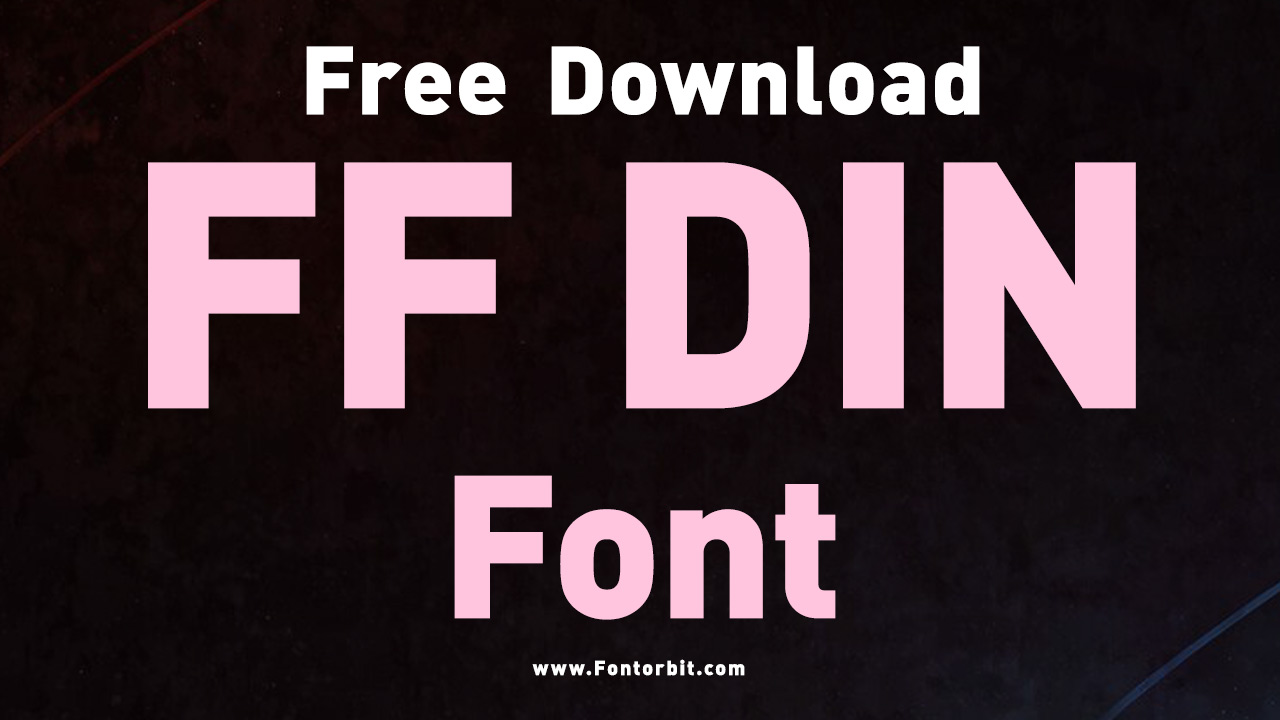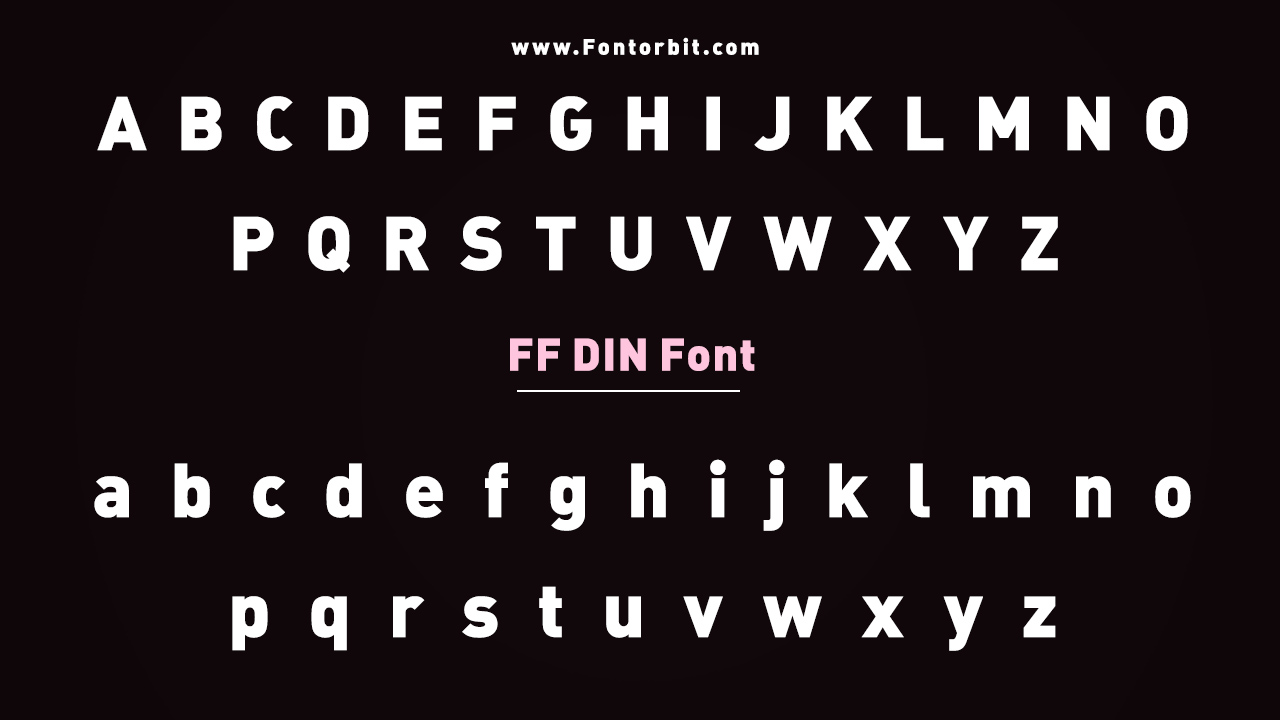
FF DIN is a modern sans-serif typeface designed by Albert-Jan Pool and published by FontFont in 1995. This typeface is part of the DIN family and is well-known for its clean lines and geometric forms, making it suitable for various design applications, from signage to digital interfaces.
FF DIN Family Includes
FF DIN features a versatile range of weights and styles. Here’s a brief overview:
- FF DIN Condensed Black
- FF DIN Pro Condensed Black
- FF DIN Light
- FF DIN Pro Light
- FF DIN Light Italic
- FF DIN Pro Light Italic
- FF DIN Regular
- FF DIN Pro Regular
- FF DIN Regular Italic
- FF DIN Pro Regular Italic
- FF DIN Medium
- FF DIN Pro Medium
- FF DIN Medium Italic
- FF DIN Pro Medium Italic
- FF DIN Bold
- FF DIN Pro Bold
- FF DIN Bold Italic
- FF DIN Pro Bold Italic
- FF DIN Black
- FF DIN Pro Black
- FF DIN Black Italic
- FF DIN Pro Black Italic
- FF DIN Thin Italic
- FF DIN Pro Thin Italic
- FF DIN Extra Light
- FF DIN Pro Extra Light
- FF DIN Extra Light Italic
- FF DIN Pro Extra Light Italic
- FF DIN Condensed Thin
- FF DIN Pro Condensed Thin
- FF DIN Condensed Thin Italic
- FF DIN Pro Condensed Thin Italic
- FF DIN Condensed Extra Light
- FF DIN Pro Condensed Extra Light
- FF DIN Condensed Extra Light Italic
- FF DIN Pro Condensed Extra Light Italic
- FF DIN Condensed Regular
- FF DIN Pro Condensed Regular
- FF DIN Thin
- FF DIN Pro Thin
- FF DIN Condensed Light
- FF DIN Pro Condensed Light
- FF DIN Condensed Light Italic
- FF DIN Pro Condensed Light Italic
- FF DIN Condensed Regular Italic
- FF DIN Pro Condensed Regular Italic
- FF DIN Condensed Medium
- FF DIN Pro Condensed Medium
- FF DIN Condensed Medium Italic
- FF DIN Pro Condensed Medium Italic
- FF DIN Condensed Bold
- FF DIN Pro Condensed Bold
- FF DIN Condensed Bold Italic
- FF DIN Pro Condensed Bold Italic
- FF DIN Condensed Black Italic
- FF DIN Pro Condensed Black Italic
Notable Uses Of FF DIN
FF DIN is widely recognized for its application in various fields, particularly in:
- Corporate Branding
- Public Signage
- Digital Interfaces
FF DIN is ideal for:
- Advertising and Marketing Materials
- User Interfaces
- Wayfinding Systems
FF DIN is a versatile and modern typeface that blends functionality with style, making it an excellent choice for a wide variety of design projects. Its geometric forms and clean lines ensure legibility, whether used in print or digital formats. From corporate branding to user interfaces and signage, FF DIN enhances visual communication and contributes to a professional aesthetic.
1.What Is FF DIN?
FF DIN is a modern sans-serif typeface designed by Albert-Jan Pool.
2.What Are The Styles Included In The FF DIN Family?
The family includes Regular, Bold, Italic, Condensed, Medium, and Light.
3.Where Can I Use FF DIN?
It’s ideal for branding, signage, and digital applications.
5.What Are Some Alternatives To FF DIN?
Alternatives include DIN Next, Roboto, and Open Sans.
6.Is FF DIN Suitable For Print Design?
Yes, it’s highly legible and works well in print.
7.Can I Use FF DIN For Web Design?
Absolutely, it’s perfect for web and app design.
8.What Type Of Projects Is FF DIN Best Suited For?
It’s best suited for corporate, advertising, and wayfinding projects.